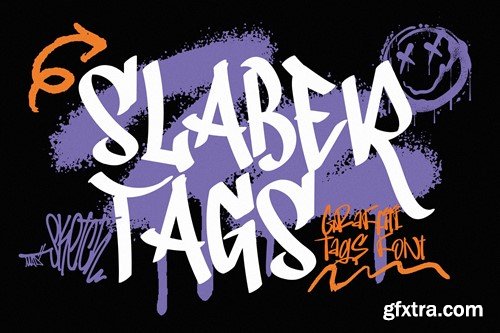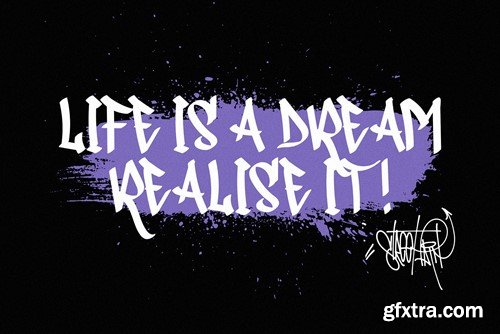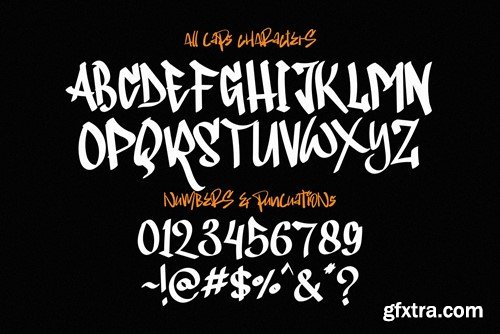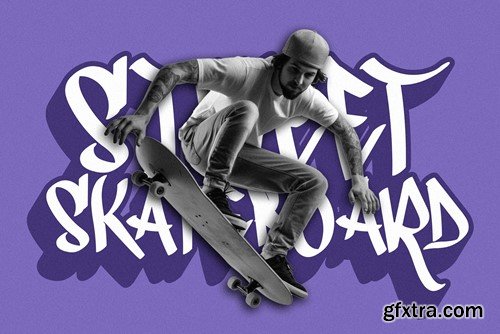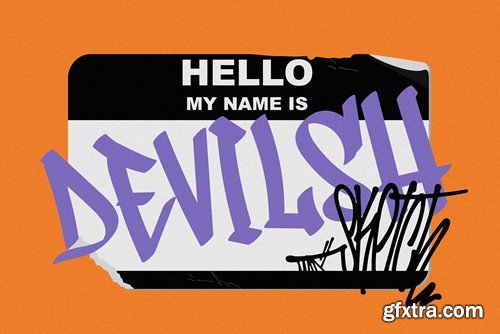
Slabler Tags - Graffiti Tags Font VELSQYV
Embark on a streetwise journey of self-expression with Slaber Tags, the graffiti tags font that amplifies the urban language of style. More than a font, Slaber Tags is a canvas for your graffiti, where each letter becomes a tag, a symbol of raw, unfiltered creativity that resonates with the vibrant spirit of street art. Crafted with streetwise precision, every stroke in Slaber Tags is a tagger's manifesto, capturing the rebellious essence of graffiti culture. Whether you're designing for streetwear, posters, or any project that craves an edgy aesthetic, this font ensures your words become a visual tagline, leaving an indelible mark on the canvas of contemporary typography. Slaber Tags isn't just a font; it's a graffiti artist's toolkit, turning your creations into a dynamic expression of urban attitude. Elevate your designs with the authentic and rebellious allure of Slaber Tags – because, on the streets of typography, this font speaks the language of graffiti with unmatched authenticity! File Included: Features: That's it! If you have any questions don't hesitate to ask! Stay Classy!